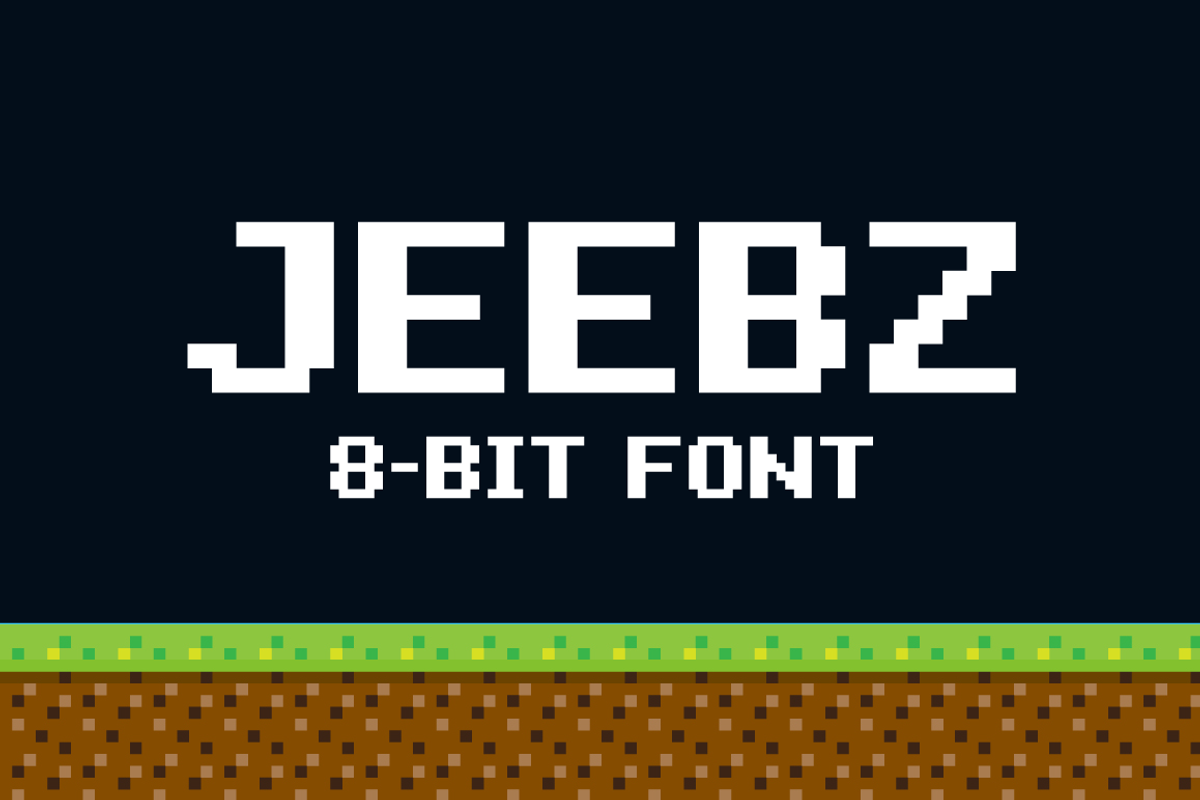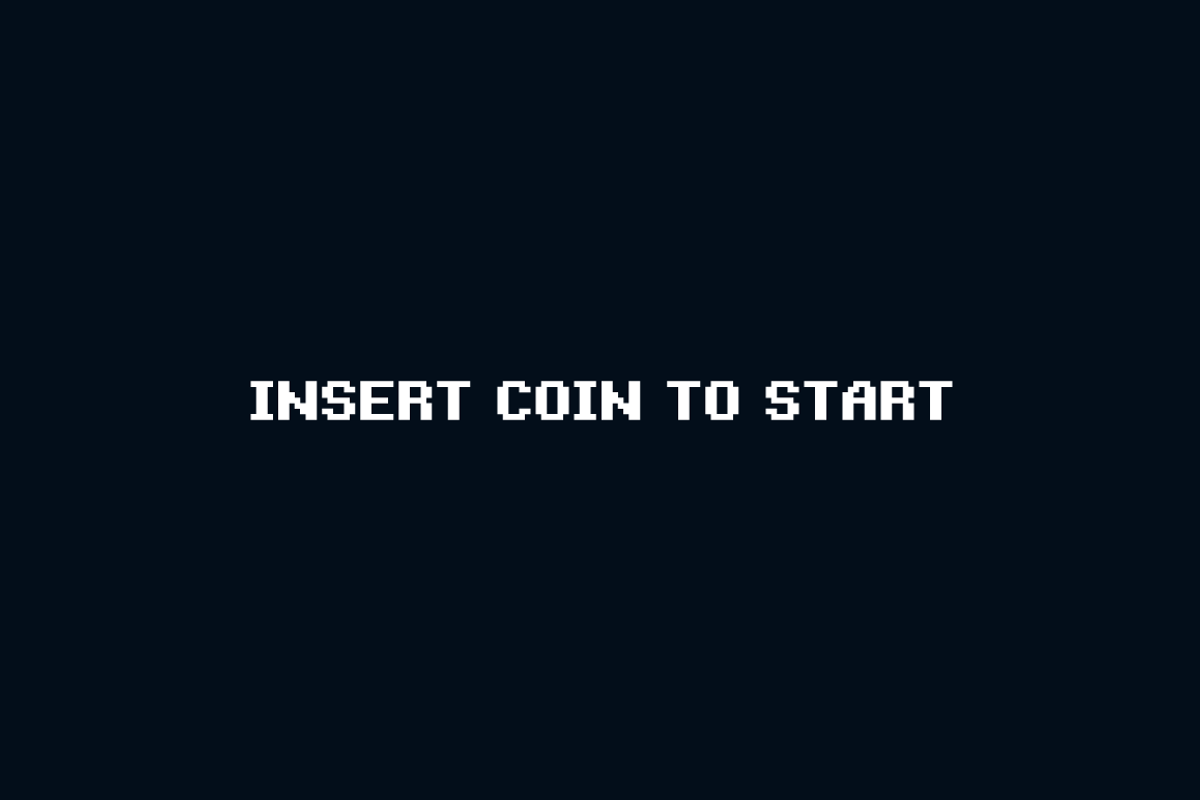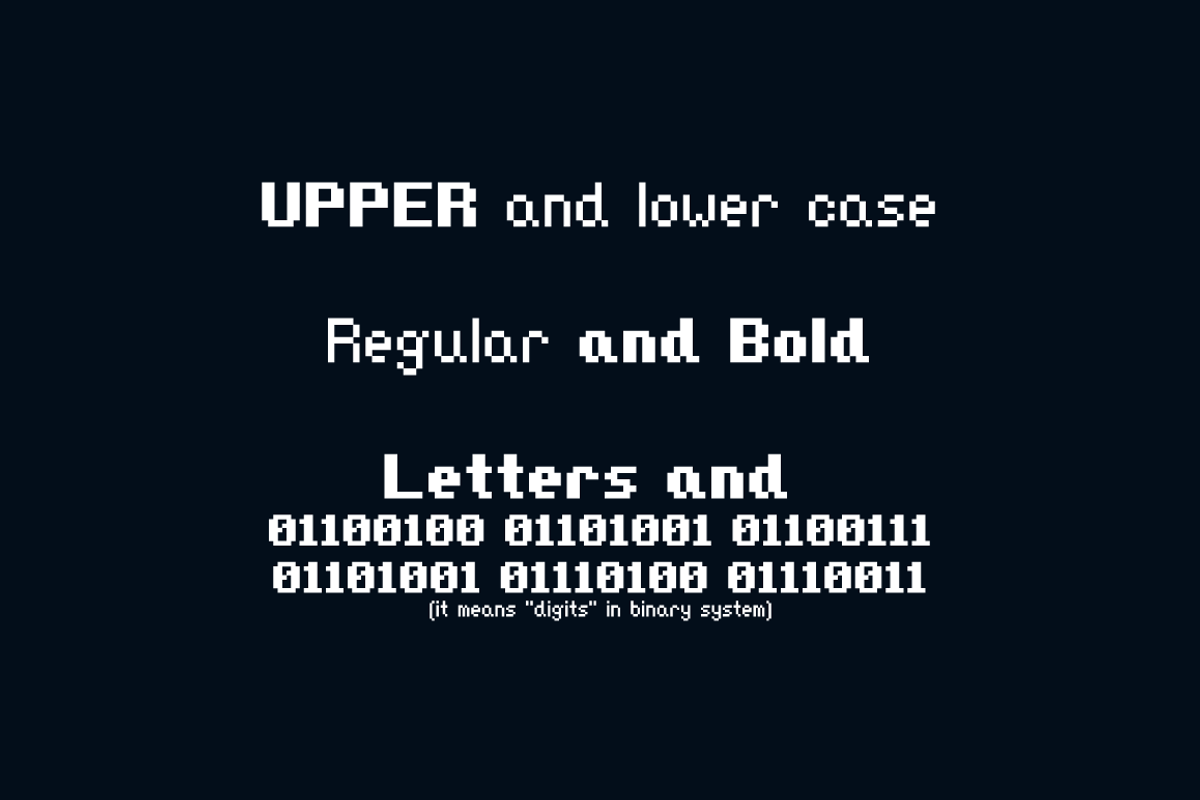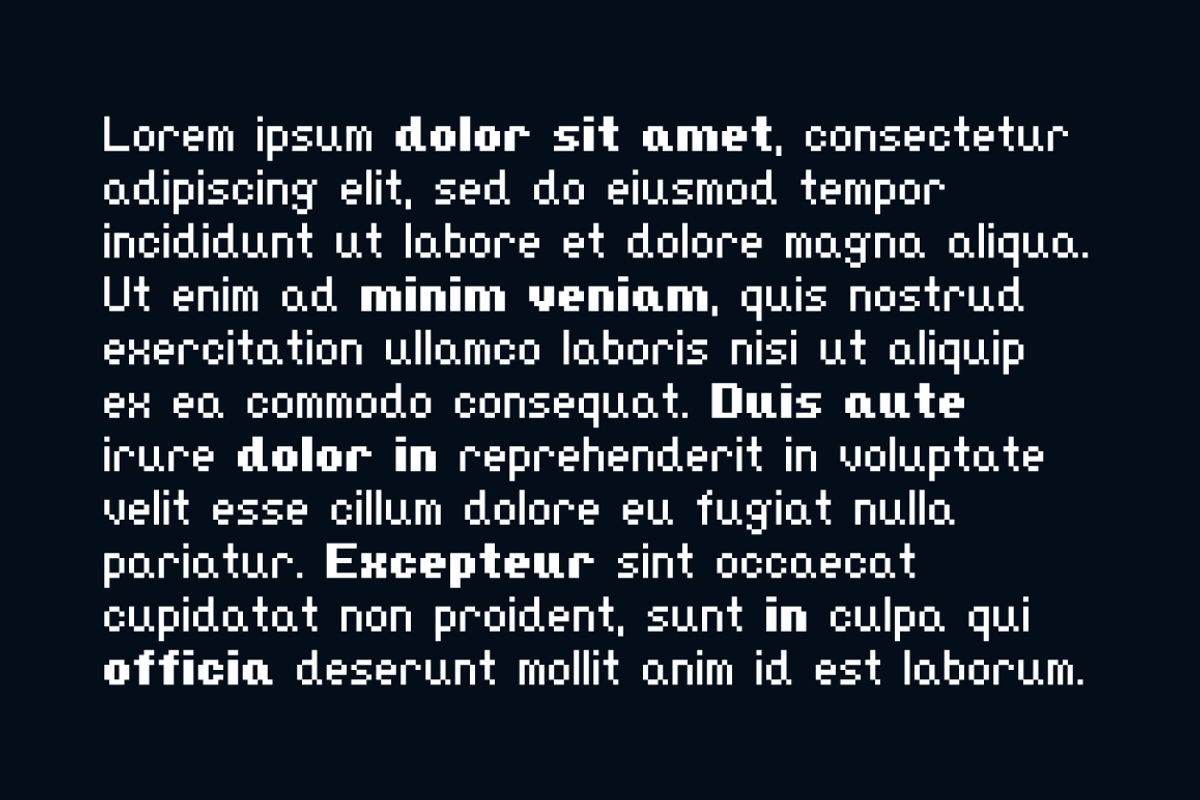
Jeebz: 8-bit font
Jeebz: 8-bit font by chuckchee is a font selected for branding, posters, packaging, typography.
- bold and regular fonts UPPER and lower case letters letters, digits and punctuation marks Product contains: Jeebs Regular and Jeebz Bold (TT
Why Jeebz: 8-bit font is worth a look
Jeebz: 8-bit font by chuckchee fits naturally into Branding, posters, packaging, typography.